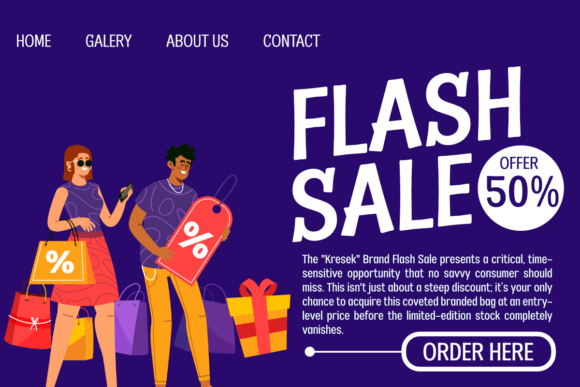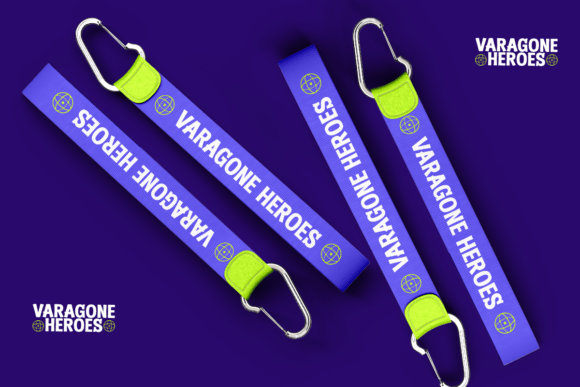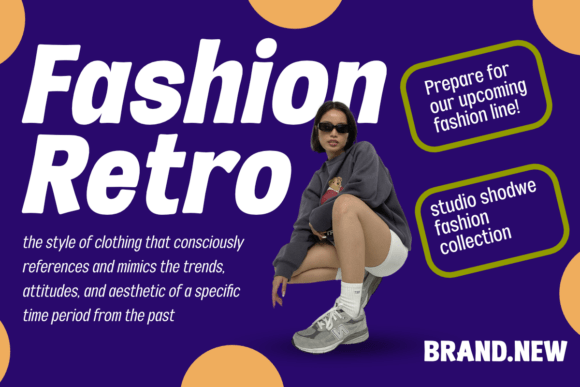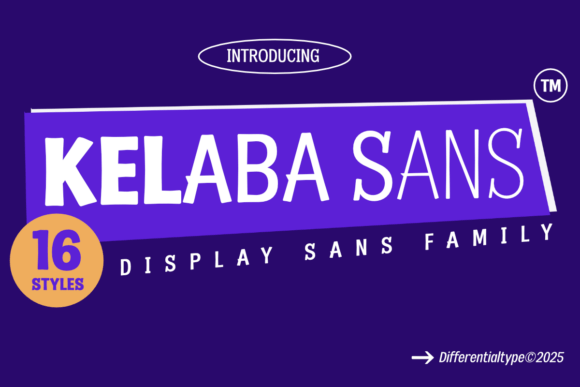
Introduction to Kelaba Sans Font
Kelaba Sans is a striking and authoritative sans-serif display family, engineered for designers seeking a powerful yet harmonious typographic presence.
It masterfully balances a bold, impactful appearance with essential legibility, ensuring your message is both seen and understood This typeface boasts a strong character, making it the perfect choice for high-impact applications, whether you’re crafting memorable headlines, commanding news titles, or creating a distinctive element within a logo or compelling product branding.
Kelaba Sans Font offers exceptional quality and versatility, making it a valuable addition to your design toolkit. Whether you’re creating for personal projects or commercial use, Kelaba Sans Font delivers professional results.